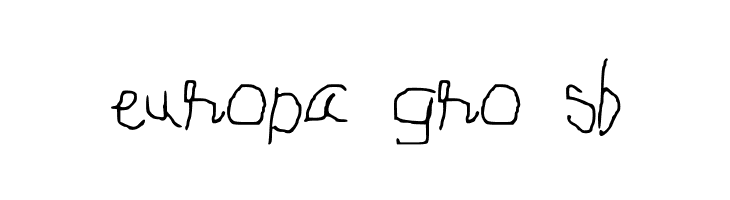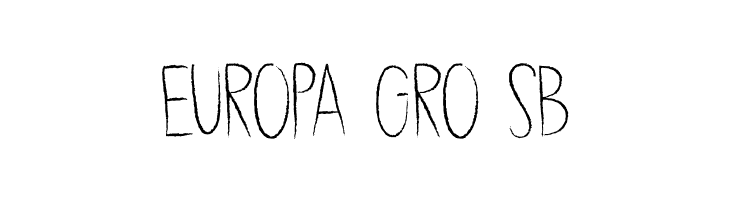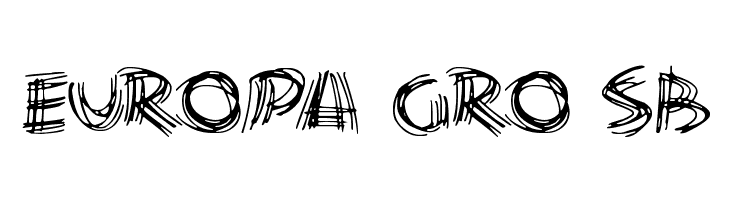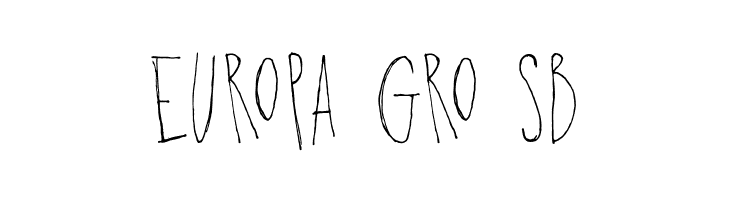
• PaintPencil
• DK Dubbel Zout Regular
( Fonts by Hanoded )
A hand-drawn, sketch-like font with tall, narrow characters and a playful edge.
• Muspi Merol Krad
A bold, hand-drawn font with a rough, sketch-like appearance.
• Scribble Lines
A playful, hand-drawn font with a scribbled, sketch-like appearance.
• TheDarkTitanClassicitalic
( Fonts by madeDeduk )
A bold, italic font with a textured, sketch-like appearance and strong decorative elements.
• ArchitectsPen
( Fonts by Michael Hassler )
A handwritten font with clean, elongated lines reminiscent of architectural sketches.
• DKPoisonIvy
( Fonts by Hanoded )
A whimsical, hand-drawn font with tall, narrow letters and a natural, sketch-like style.
• DiscoverEarth
( Fonts by Xerographer Fonts )
A tall, narrow, and sketch-like font with an artistic, hand-drawn appearance.
• Archistico Bold
A bold, sketch-like font with a hand-drawn, artistic style.
• Archistico Normal
A hand-drawn serif font with a sketch-like, textured appearance.